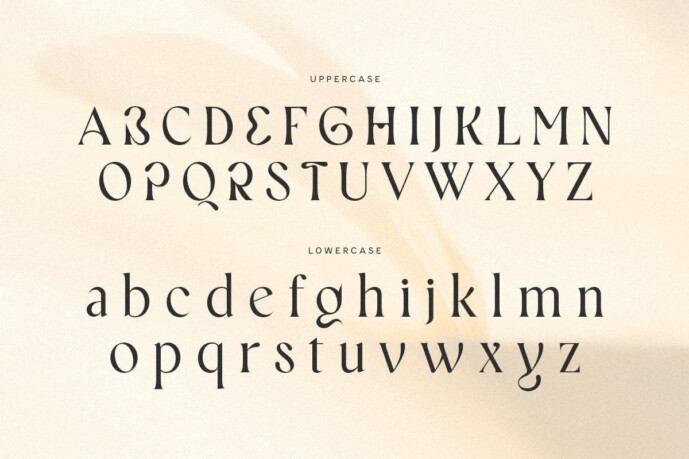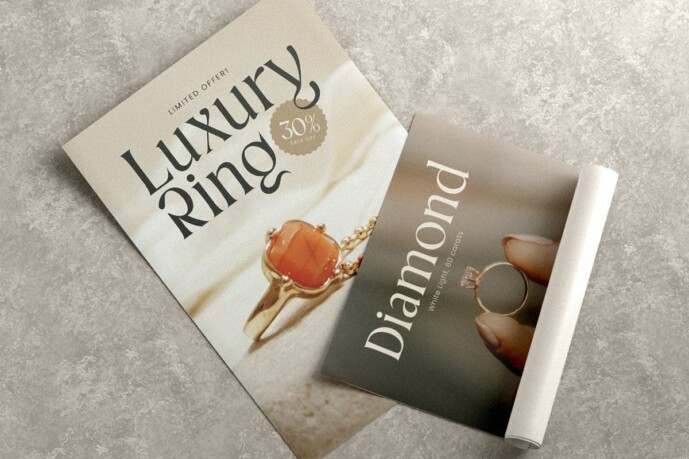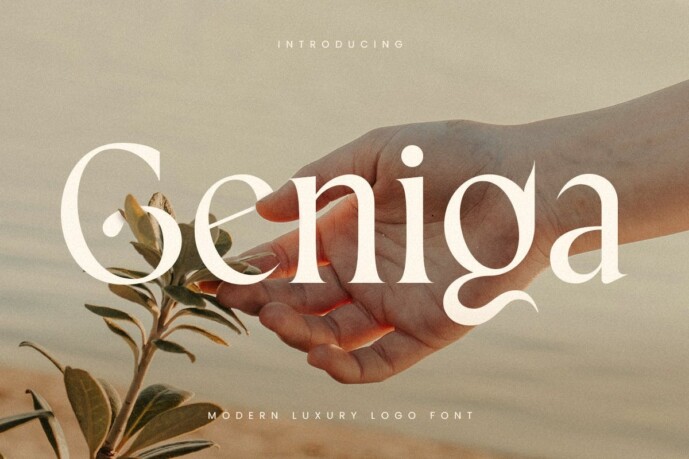
Geniga Font
Geniga Font an exclusive luxury font designed for sophisticated and modern branding, offering an elegant aesthetic to enhance your brand appeal. Crafted with unique variations, this font is designed to enhance your brand value. Whether you are a designer or a product owner looking for elegant and modern solutions, this font is the perfect answer. Featuring an array of bohemian characters, it opens the door to endless creative possibilities, allowing you to create a myriad of variations for your unique and elegant designs.